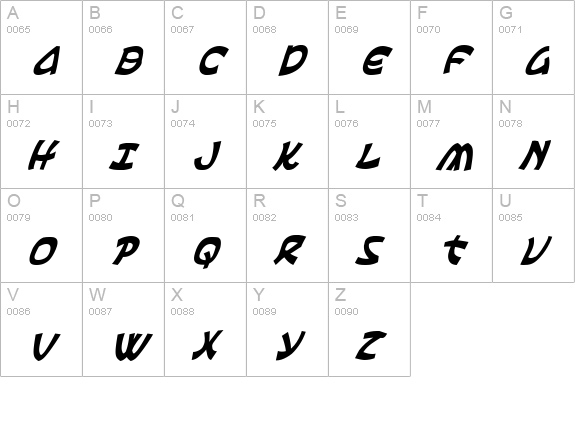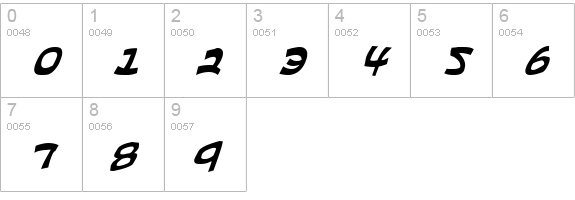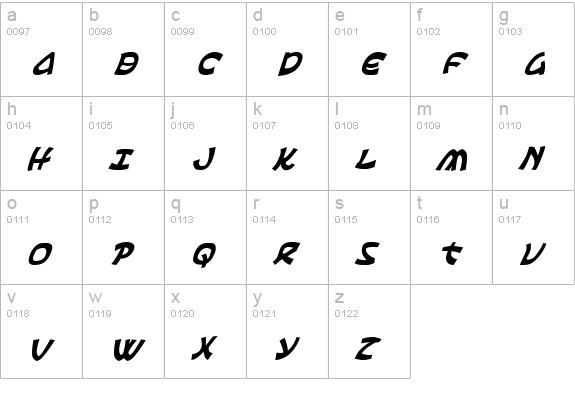
Ephesian Condensed Italic is a distinctive, condensed-width, italic variant in the Ephesian typeface family \xE2\x80\x94 well suited to design and typography projects.
The Ephesian Condensed Italic font exudes elegance and sophistication with its sleek and stylish design. Its unique italicized form adds a touch of modernity to any text, making it perfect for various design projects. The condensed style of the font allows for efficient use of space without compromising on readability. This font is not only visually appealing but also versatile, suitable for a wide range of applications such as branding, advertising, and editorial design. Its sleek curves and slanted angles create a dynamic and engaging visual impact that captures the attention of the audience. Best of all, Ephesian Condensed Italic font is available for free download at FontsMarket.com, making it easily accessible for designers and enthusiasts alike. Whether you're looking to elevate your typography game or add a touch of sophistication to your projects, this font is sure to impress with its unique style and flair.